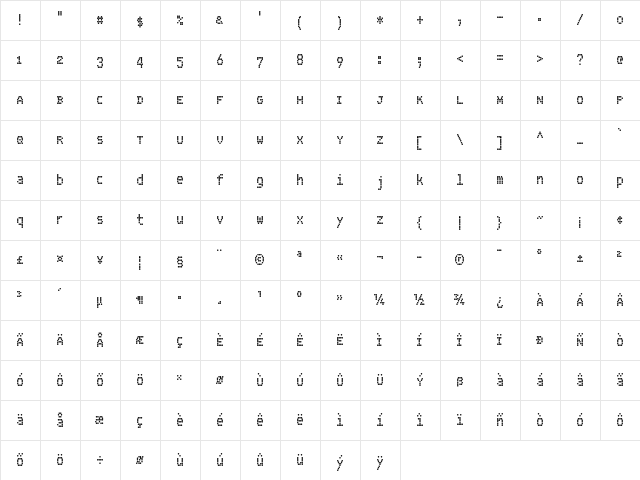
FS Blok Mix Regular
| Designer | Vojto Ruman |
Design Context for FS Blok Mix Typeface
FS Blok Mix takes a measured approach to typography — its balanced proportions and neutral character make it a reliable workhorse for both digital and print work.